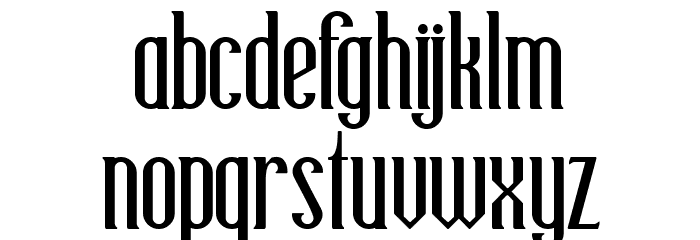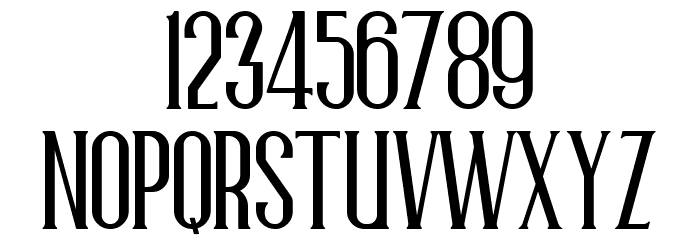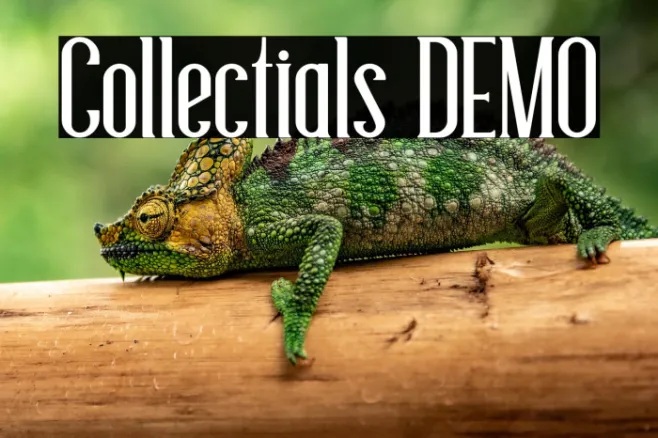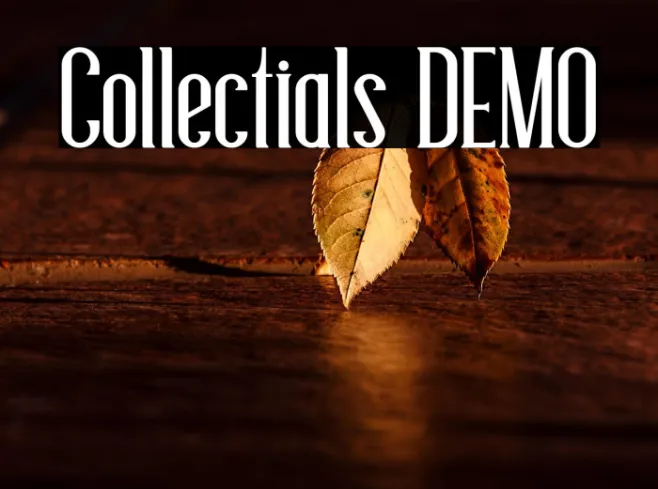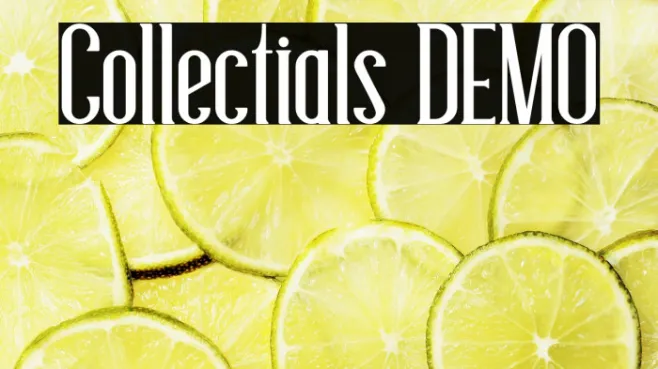
Collectials DEMO Font
This font features a distinctive, elongated design with a modern flair. The uppercase letters are tall and narrow, creating a striking presence. The lowercase letters maintain a consistent height with subtle curves, adding elegance. The numerals are uniquely styled to match the overall aesthetic, while the special characters blend seamlessly with the rest of the set. The font's design is both bold and sophisticated, making it suitable for a variety of creative applications.
A modern, elongated font with a bold and sophisticated style.
- Proposed Projects: Ideal for branding, posters, and editorial design where a modern and impactful look is desired.